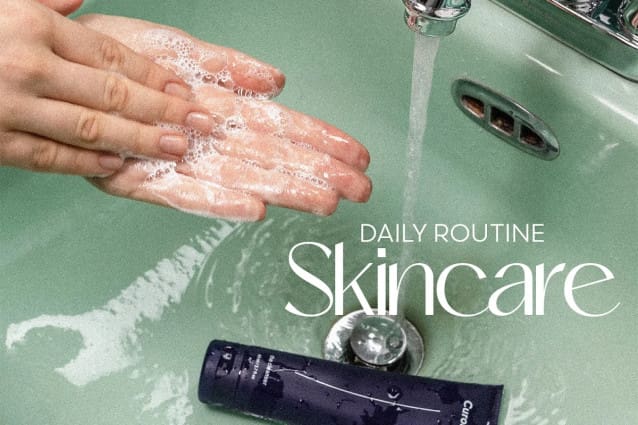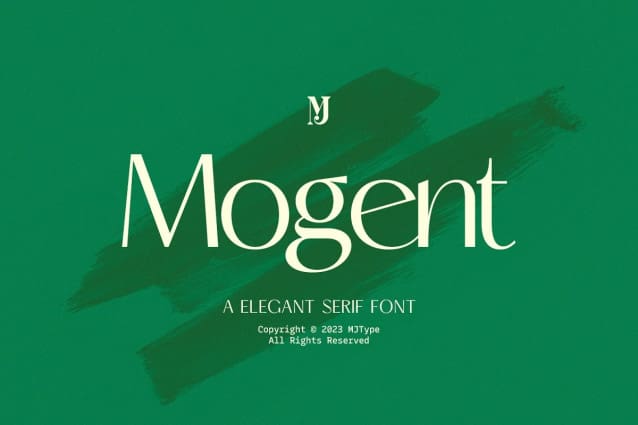
Mogent Font
Mogent Font – a delightful sans serif font that effortlessly marries timeless elegance with a dash of contemporary flair. Its refined letters and well-balanced proportions make it just perfect for logos, editorial designs, and packaging. Let the enchanting vibes of Mogent elevate your typography game, adding a touch of sophistication and charm to your creative compositions.